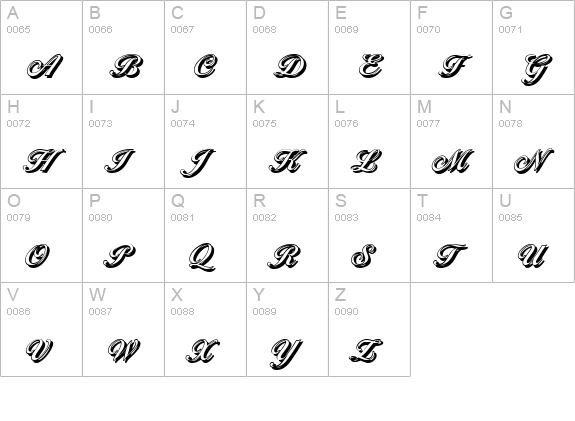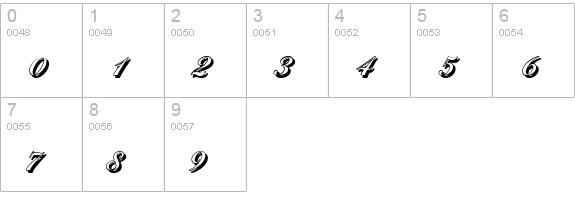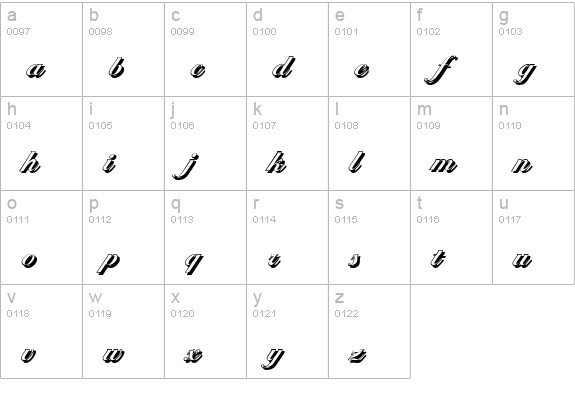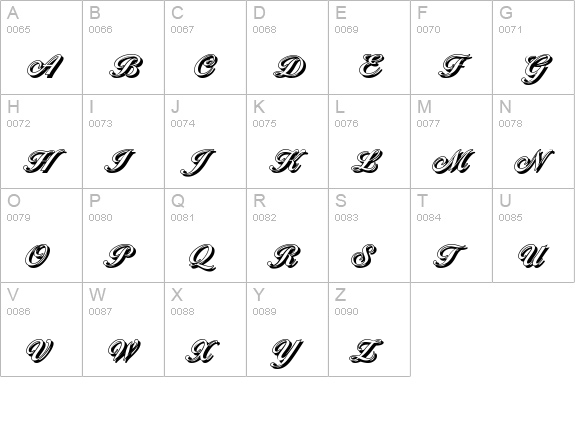
BallantinesShadow-Bold is a strong, high-contrast variant in the BallantinesShadow typeface family \xE2\x80\x94 well suited to headlines, attention-grabbing titles, and strong calls-to-action.
BallantinesShadow-Bold font is a striking and bold typeface that exudes a sense of power and strength. Its sharp edges and defined lines give it a modern and dynamic look, making it perfect for titles, headlines, and other prominent text in design projects. The font carries a unique shadow effect that adds depth and dimension to its characters, making them stand out on any layout. What sets BallantinesShadow-Bold font apart is its versatility and ability to make a statement without being overpowering. Whether used in print or digital media, this font commands attention and leaves a lasting impression on the viewer. Best of all, BallantinesShadow-Bold font is available for free download at FontsMarket.com, making it accessible to designers and creators looking to add a touch of boldness to their projects without breaking the bank. Don't miss out on this opportunity to enhance your designs with a font that speaks volumes.